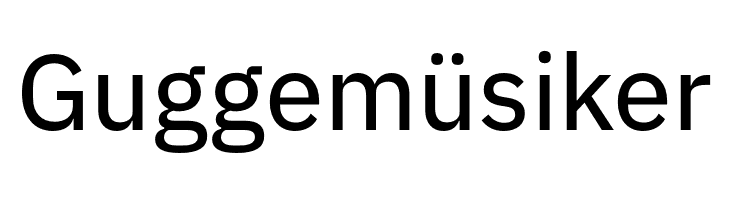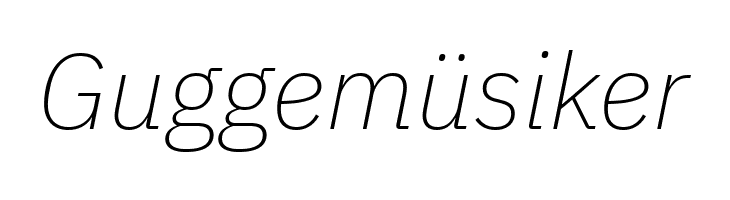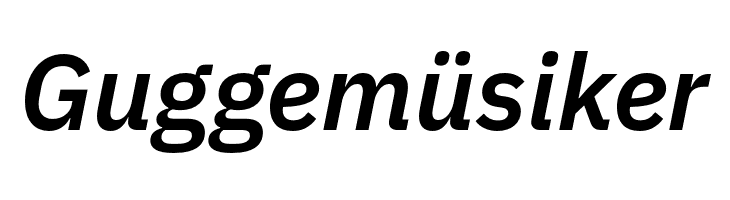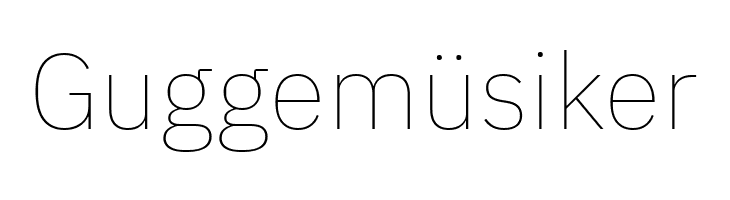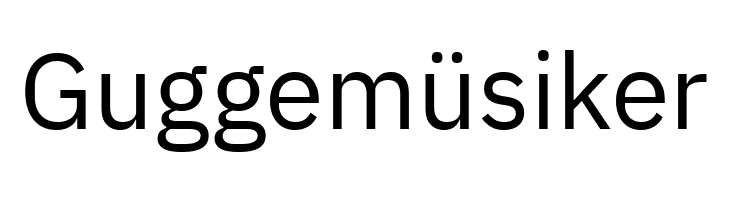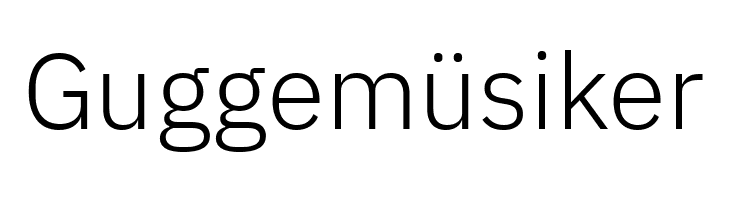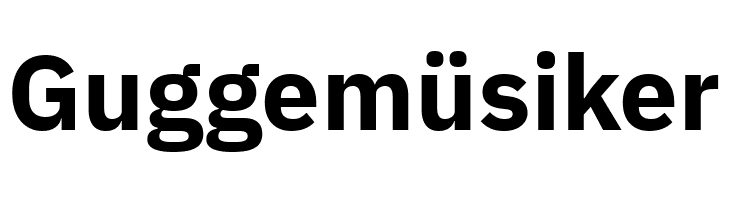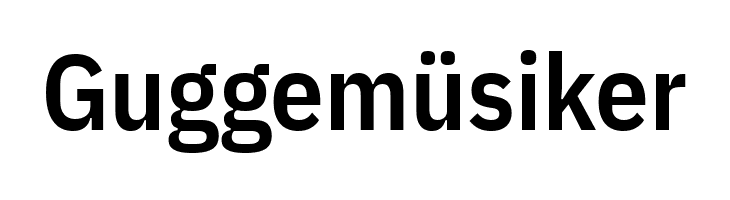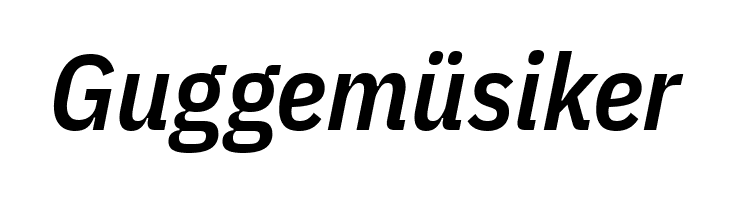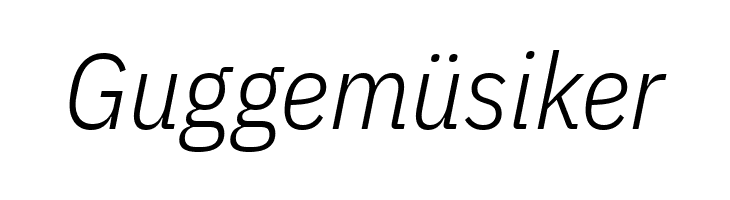
IBM Plex Sans Condensed Thin Font
A modern, thin, and condensed sans-serif font with excellent legibility.
IBM Plex Sans Condensed Thin Italic Font
A sleek, modern, condensed, and thin italic font with a clean and elegant style.
IBM Plex Sans Devanagari Bold Font
Bold, modern sans-serif with geometric shapes and high legibility.
IBM Plex Sans Devanagari ExtraLight Font
Ultra-light, geometric sans-serif with open, modern forms.
IBM Plex Sans Devanagari Light Font
Minimalist, geometric sans-serif with light strokes and high legibility.
IBM Plex Sans Devanagari Medium Font
Modern, geometric sans-serif with excellent legibility and balanced proportions.
IBM Plex Sans Devanagari Regular Font
Modern, geometric sans-serif with high legibility and open forms.
IBM Plex Sans Devanagari SemiBold Font
Modern, geometric sans-serif with strong legibility and balanced forms.
IBM Plex Sans Devanagari Thin Font
Ultra-thin, geometric sans-serif with a modern, minimal look.
IBM Plex Sans ExtraLight Font
A modern, clean sans-serif font with uniform stroke width and excellent readability.
IBM Plex Sans ExtraLight Italic Font
A sleek, modern, and minimalistic font with a slight slant and thin strokes.
IBM Plex Sans Italic Font
A modern sans-serif font with a subtle italic slant and clean lines.
IBM Plex Sans Italic Font
A modern, italic sans-serif font with clean lines and balanced proportions.
IBM Plex Sans Light Font
A modern, light sans-serif font with excellent legibility and a clean, professional look.
IBM Plex Sans Light Font
A modern, light sans-serif font with clean lines and excellent legibility.
IBM Plex Sans Light Italic Font
A modern, light, and italic sans-serif font with excellent readability.
IBM Plex Sans Light Italic Font
A modern, light, italic sans-serif font with clean lines and excellent readability.
IBM Plex Sans Medium Font
A modern sans-serif font with clean lines and balanced proportions.
IBM Plex Sans Medium Font
A modern, geometric sans-serif font with clean lines and excellent legibility.